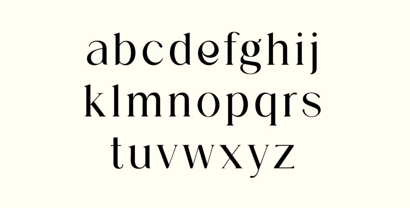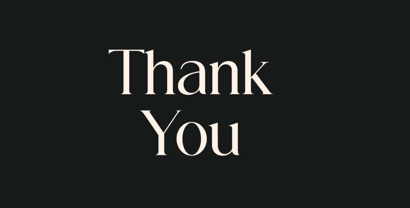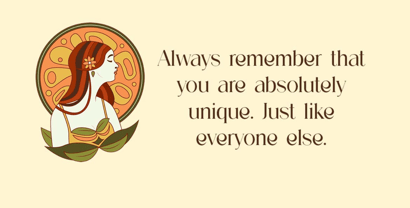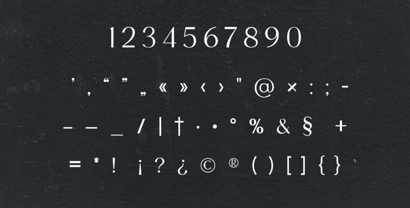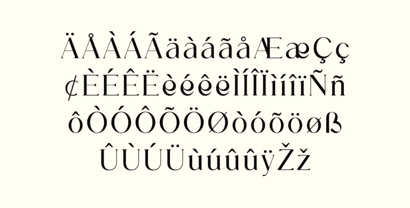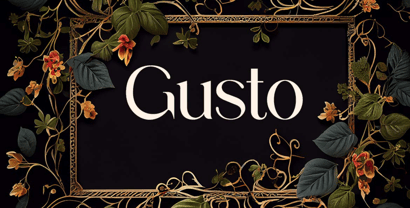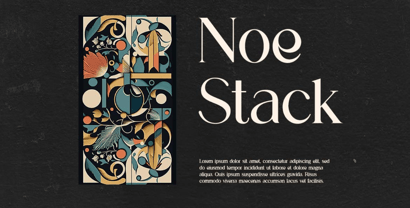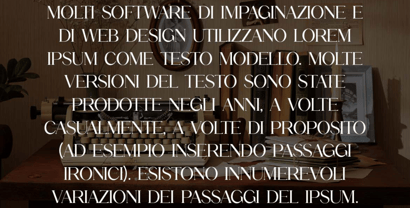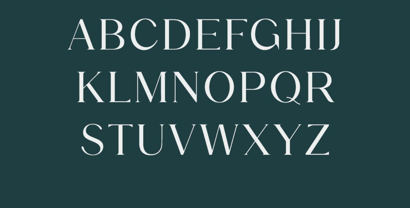
Biconvex
by UICreative
The Biconvex Font Family was designed by Hero and published by UICreative. Biconvex contains 1 styles.
Introducing our new product the name is Biconvex Serif Font. Biconvex Serif Font that feels beautiful classy, elegant, and modern. This font is perfectly suited for a wide variety of projects, such as signature, stationery, logo, wedding, typography quotes, magazine or book covers, website headers, clothing, branding, packaging design, and more. Also, fashion-related branding or editorial design displays both masculine and feminine qualities.